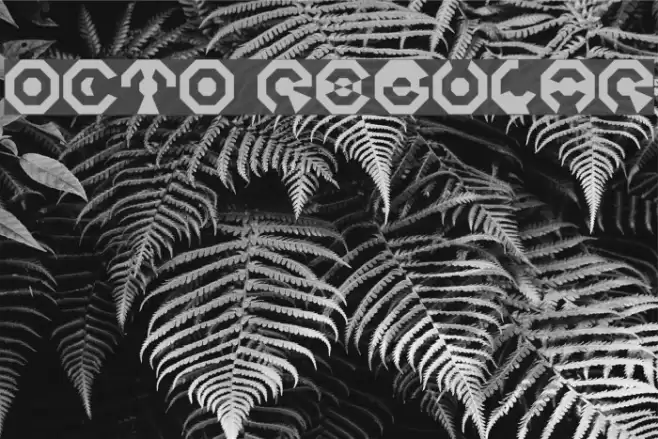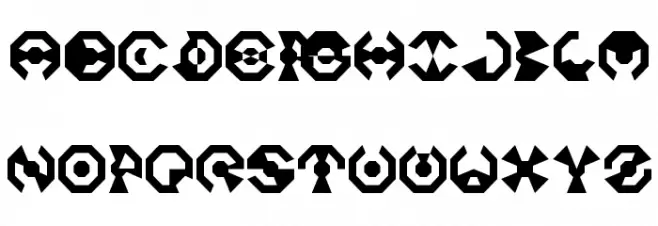
Octo Regular Font
Octo Regular Description
This font features a bold, geometric design with a futuristic and abstract aesthetic. Each character is constructed from a series of angular shapes and sharp edges, creating a visually striking and unique appearance. The style is reminiscent of digital or sci-fi themes, with a strong emphasis on symmetry and form. The characters are tightly spaced, enhancing the compact and cohesive look of the text. This font is ideal for projects that require a modern and edgy feel, such as tech-oriented branding, video game titles, or futuristic posters.
A bold, geometric font with a futuristic and abstract design from Uncategorized fonts.
- Proposed Projects: Ideal for tech branding, video game titles, and futuristic posters.
- Character Spacing: Tight
- Overall Style: Futuristic
- Use Case: Logos, Headlines